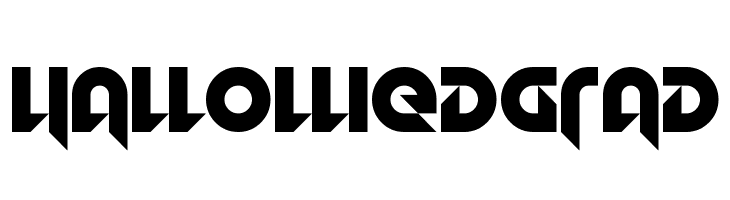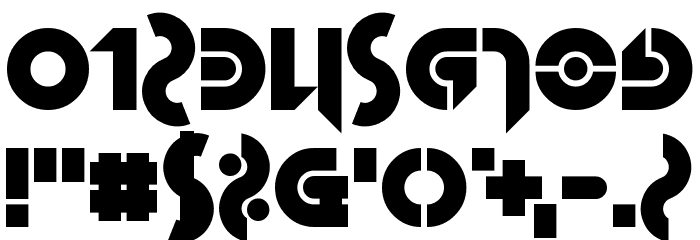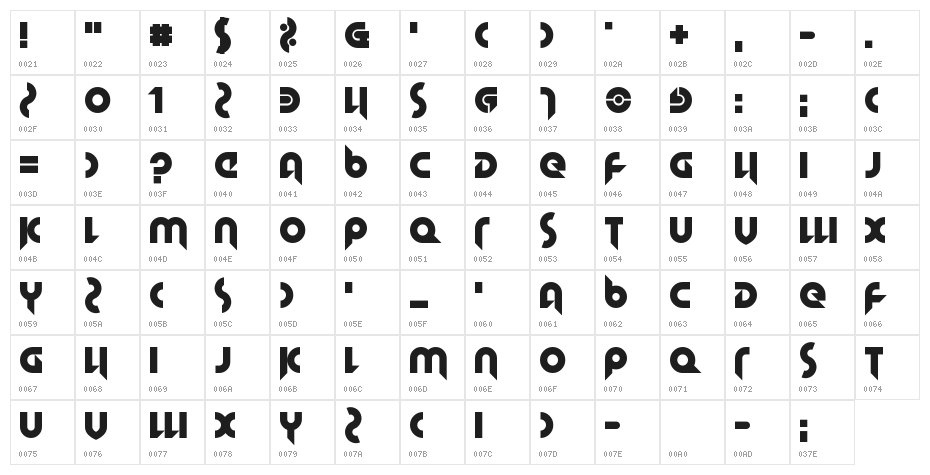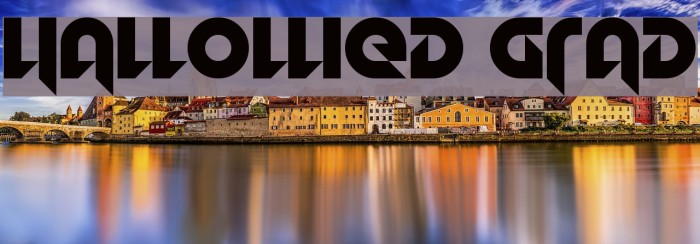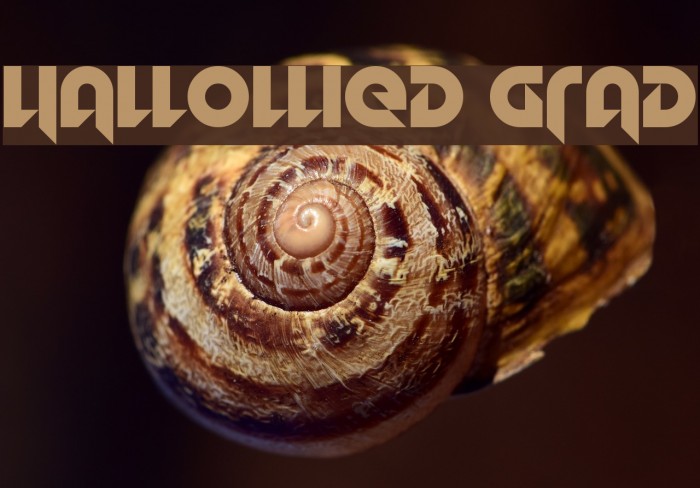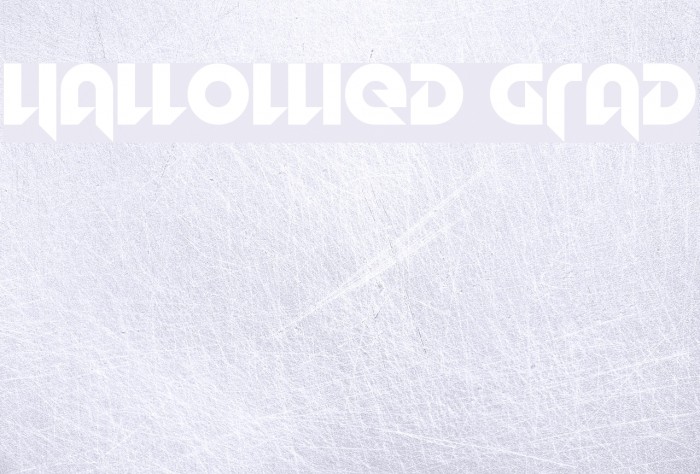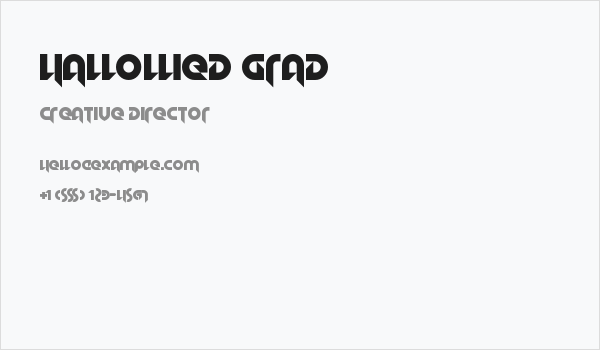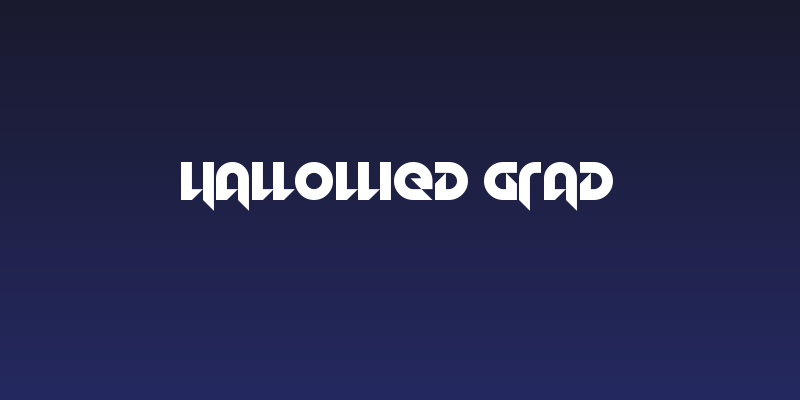
Hallowed Grad Font
Hallowed Grad Description
This font features a bold and geometric design with sharp angles and unique cutouts that create a futuristic and edgy appearance. The characters are crafted with a consistent thickness, giving the font a uniform and solid look. The uppercase and lowercase letters maintain a cohesive style, while the numbers and special characters integrate seamlessly with the overall design. The font's distinct style makes it stand out, offering a modern and innovative aesthetic that is both eye-catching and memorable.